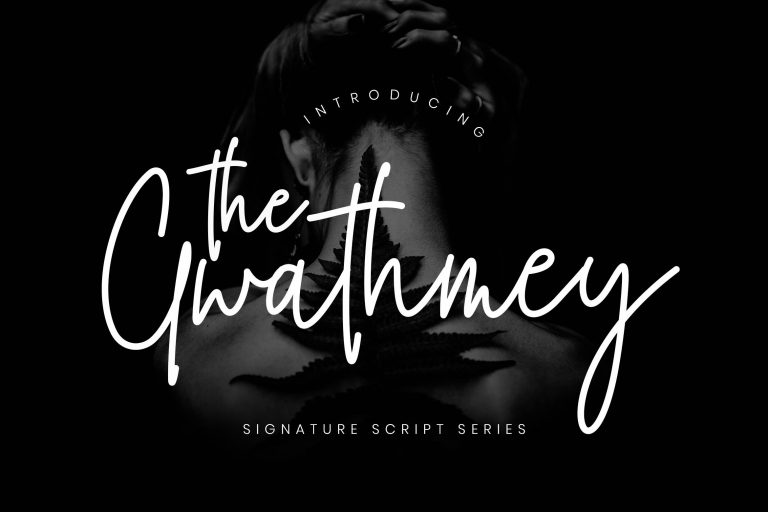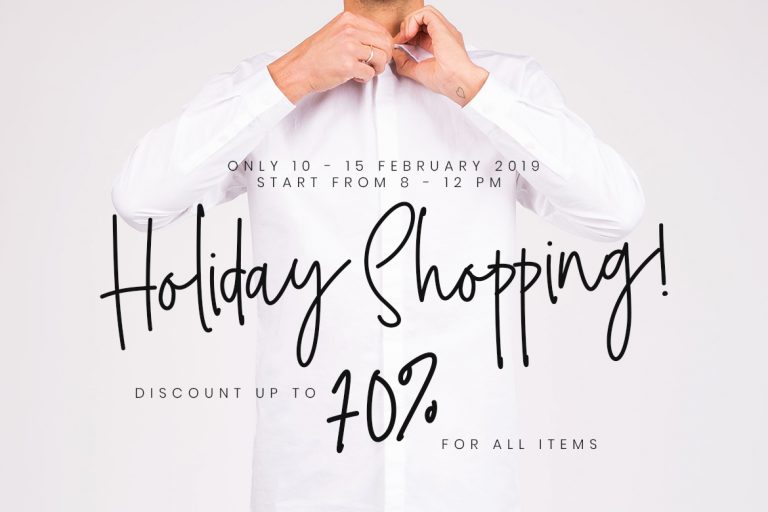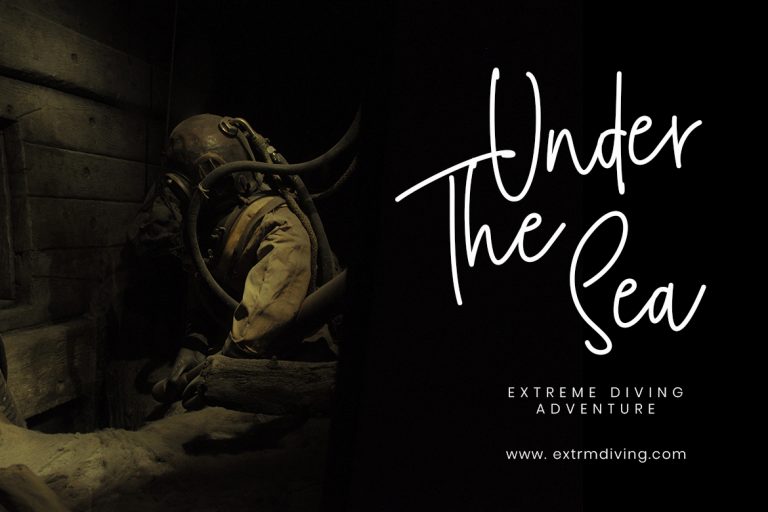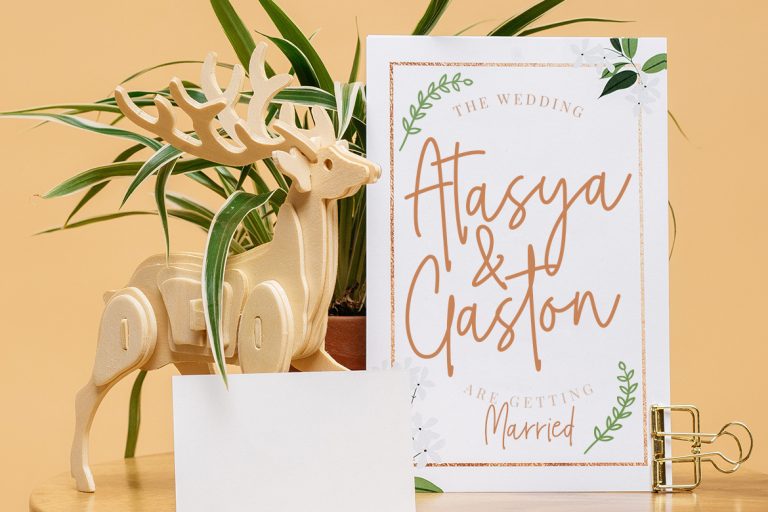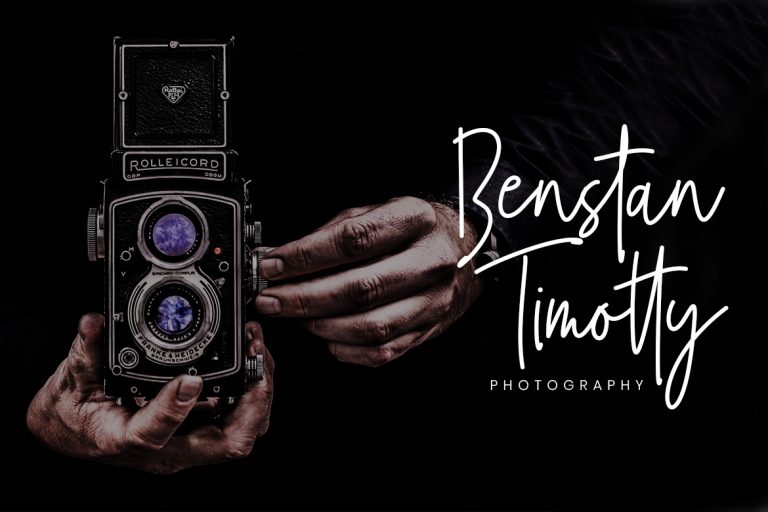
The Gwathmey is a elegant signature font which purely a result of handwriting and has a natural characteristic that designed for all kinds of stylish project.
The Gwathmey is perfect for branding projects, logo, wedding designs, social media posts, advertisements, product packaging, product designs, label, photography, watermark, invitation, stationery and any projects that need handwriting taste.
The Gwathmey Signature Script